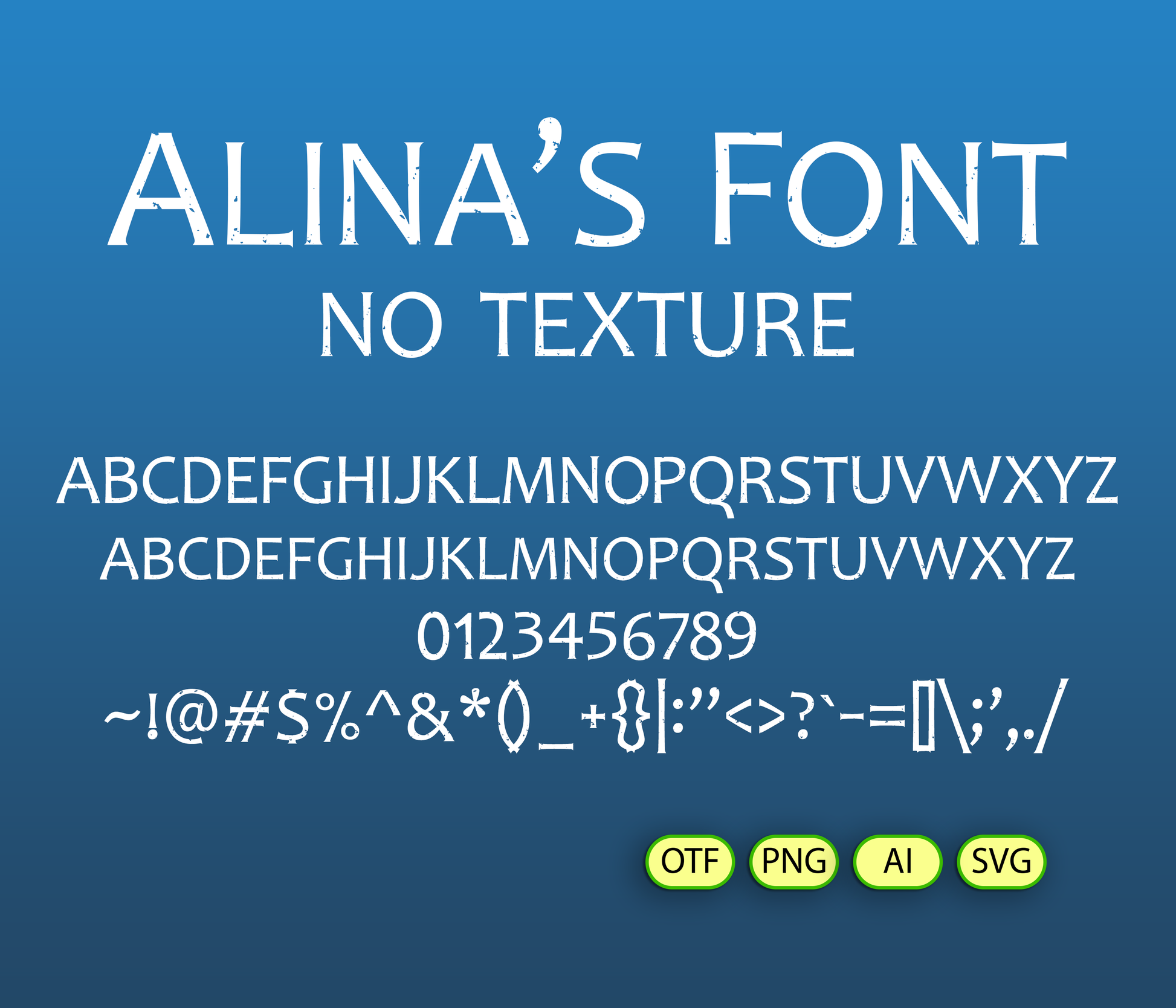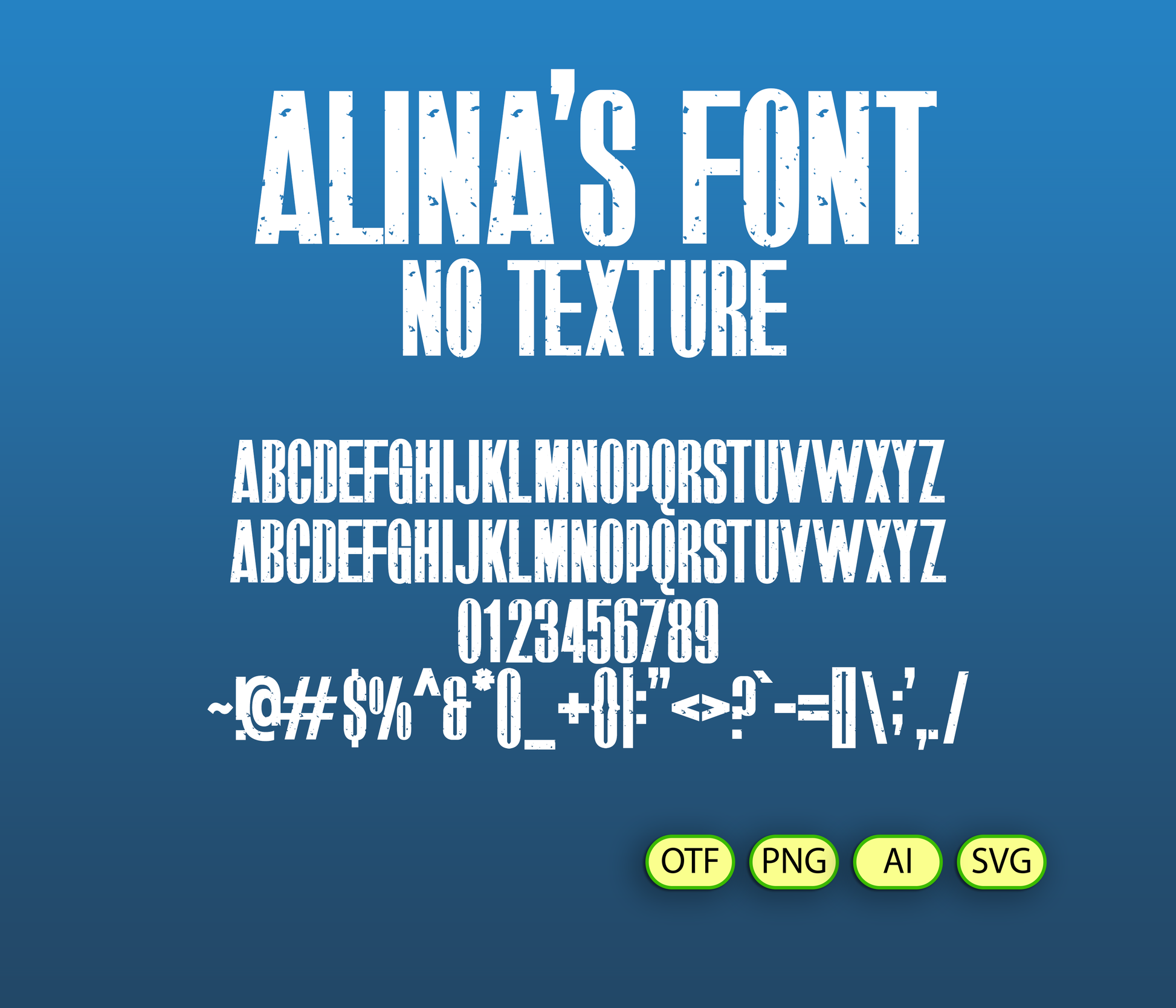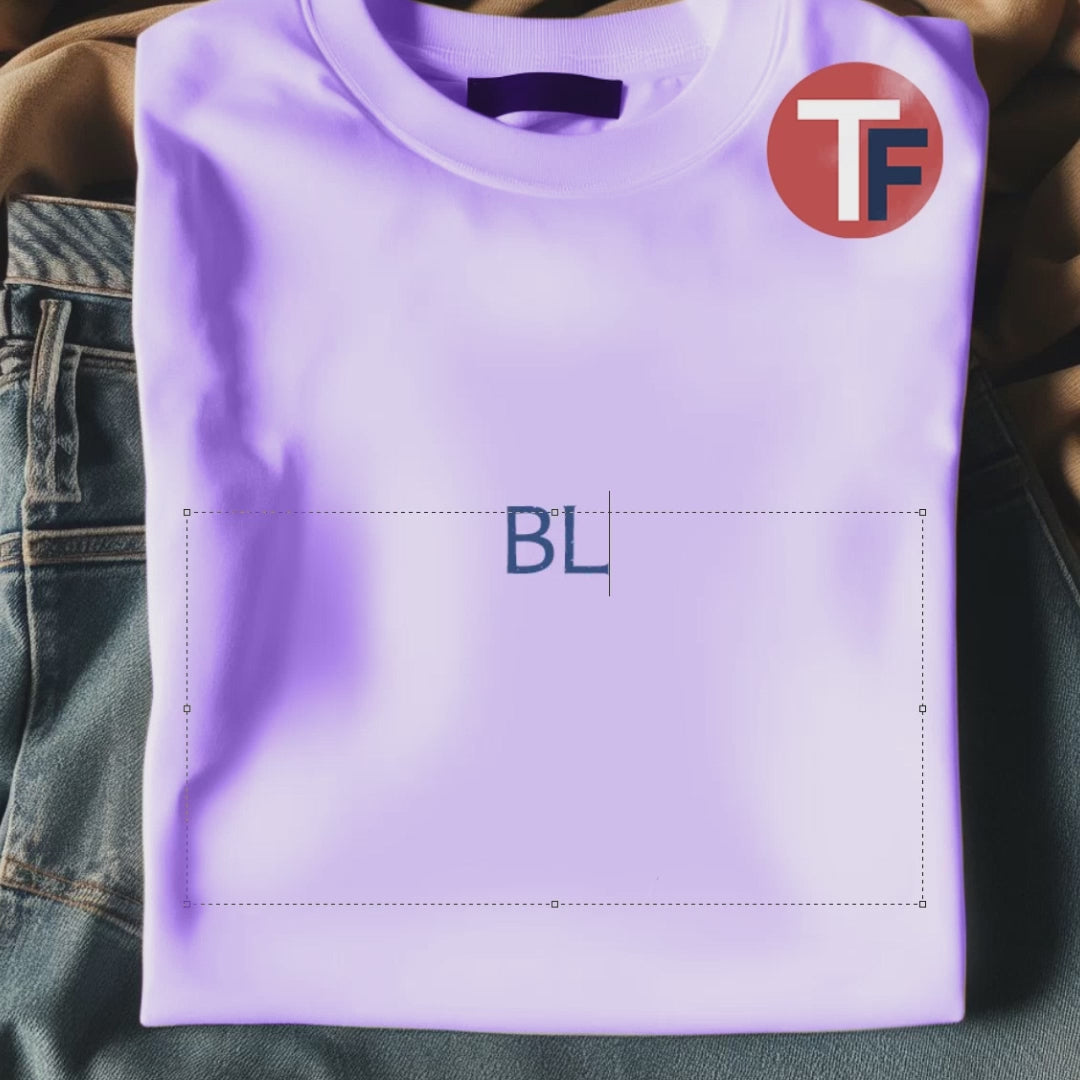
Unleash Precision and Power with the Azure Blade Samurai Font
Step into the striking and disciplined world of the Azure Blade Samurai with our specially designed font, capturing the essence of this captivating tale. Perfect for fans, event planners, and designers looking to infuse their projects with a sense of elegance and strength, this font brings the sharp and powerful spirit of the samurai to your designs. Whether creating event invitations, designing themed merchandise, or crafting digital content, our Azure Blade Samurai font ensures your projects resonate with the precision and intensity of the legendary warriors.
Our Azure Blade Samurai-inspired font features clean, sharp lines and a bold, structured design that reflects the disciplined and formidable nature of the samurai. This versatile font is ideal for a variety of applications:
- Event Invitations: Perfect for creating striking invites for martial arts events, cultural gatherings, or themed parties.
- Merchandise Design: Ideal for designing t-shirts, posters, and accessories that capture the essence of the samurai spirit.
- Digital Media: Enhance websites, blogs, and social media content with powerful headers and graphics.
- Educational Materials: Use in presentations, worksheets, and educational content focused on Japanese culture, history, or martial arts.
- Personal Projects: Add a touch of samurai precision to scrapbooking, DIY crafts, or home decor inspired by the adventures of the Azure Blade Samurai.
Our Azure Blade Samurai font not only pays homage to the iconic character but also empowers you to infuse your designs with the precision and strength that define the samurai. Whether crafting promotional materials, designing unique merchandise, or adding a dynamic touch to personal projects, this font allows you to communicate with the bold and disciplined essence of the samurai. Ready to bring a warrior's edge to your creative endeavors? This font is your key to unlocking a world of powerful and impactful design.